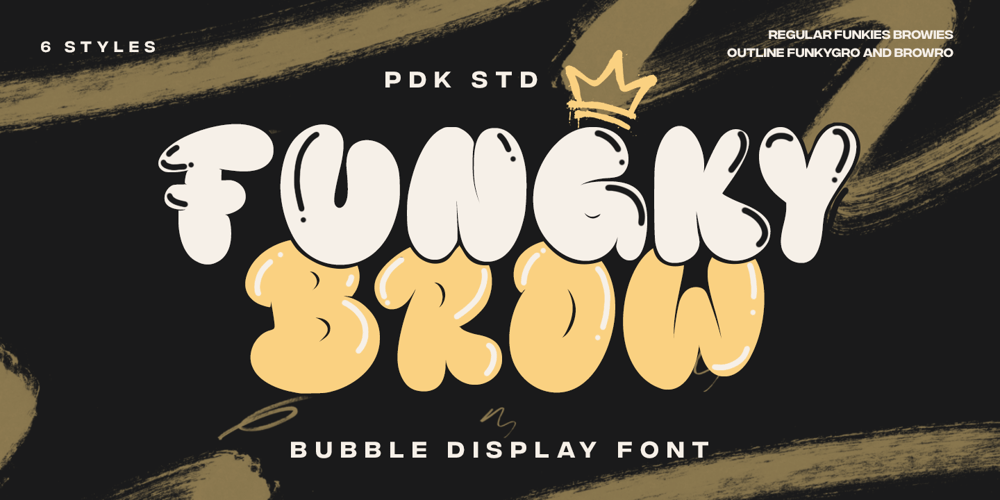
Fungky Brow Font Family was designed by Sagara Nararya and published by Pandeka Studio. Fungky Brow contains 6 styles and family package options. Introducing Funky Brow, a lively bubble graffiti font that injects energy and personality into your designs. With six unique styles—Regular, Funkies, Browies, Outline, Funkygro, and Browro—this font family brings a fresh twist to bubble-inspired typography, ideal for graffiti art and streetwear.Each style offers a distinct flair: Regular provides a clean base, Browies adds a “drop bubble” effect, and Funkies amplifies it with bolder accents. Outline gives a classic graffiti outline, Browro merges outline with drop bubbles, and Funkygro goes big with bold drop bubbles, perfect for creating standout designs.What’s Included? Funky Brow Main Files 6 style : Regular, Funkies, Browies, Outline, Funkygro and Browro Unique letterforms Works on PC & Mac Simple Installations Accessible in the Adobe Illustrator, Adobe Photoshop, Microsoft Word even work on Canva PUA Encoded Characters Fully accessible without additional design software. Language Support: Danish, English, Estonian, Filipino, Finnish, French, Friulian, Galician, German, Gusii, Indonesian, Irish, Italian, Luxembourgish, Norwegian Bokmål, Norwegian Nynorsk, Nyankole, Oromo, Portuguese, Romansh, Rombo, Spanish, Swedish, Swiss-German, Uzbek (Latin)Feel free to follow, like and share. Thanks so much for checking out my shop!Have a great day!Pandeka Studio